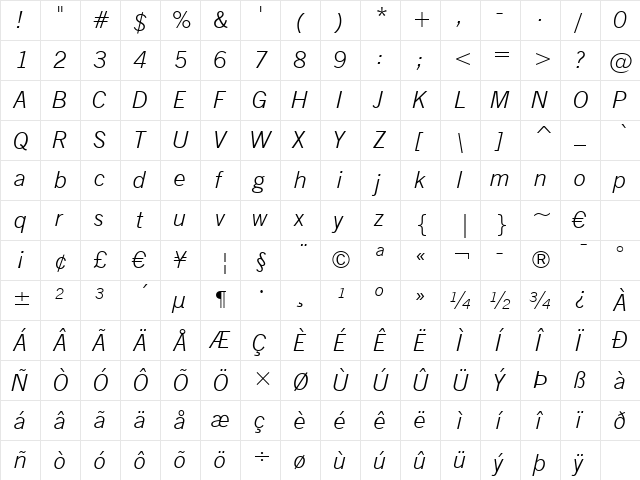
NewsGoth Lt BT Light Italic Font Preview
NewsGoth Lt BT Light Italic
NewsGoth Lt BT Light Italic Font Details
Design Context for NewsGoth Lt BT Typeface
NewsGoth Lt BT offers clean, dependable letterforms without strong stylistic allegiance, making it a practical choice for designers who need flexibility. The dynamic lean of this cut emphasises speed and emphasis in any layout. Its slender proportions lend an understated elegance to any composition.